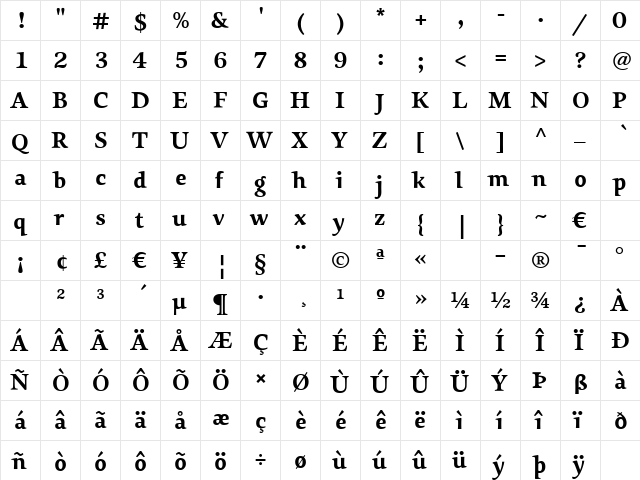
Sovereign-ExtraBold Regular Font Preview
Sovereign-ExtraBold Regular
Sovereign-ExtraBold Regular Font Details
Design Context for Sovereign-ExtraBold Typeface
Sovereign-ExtraBold is a composed and adaptable typeface that performs quietly and consistently across a wide range of design contexts. The heavy weight commands attention and anchors typographic hierarchies.